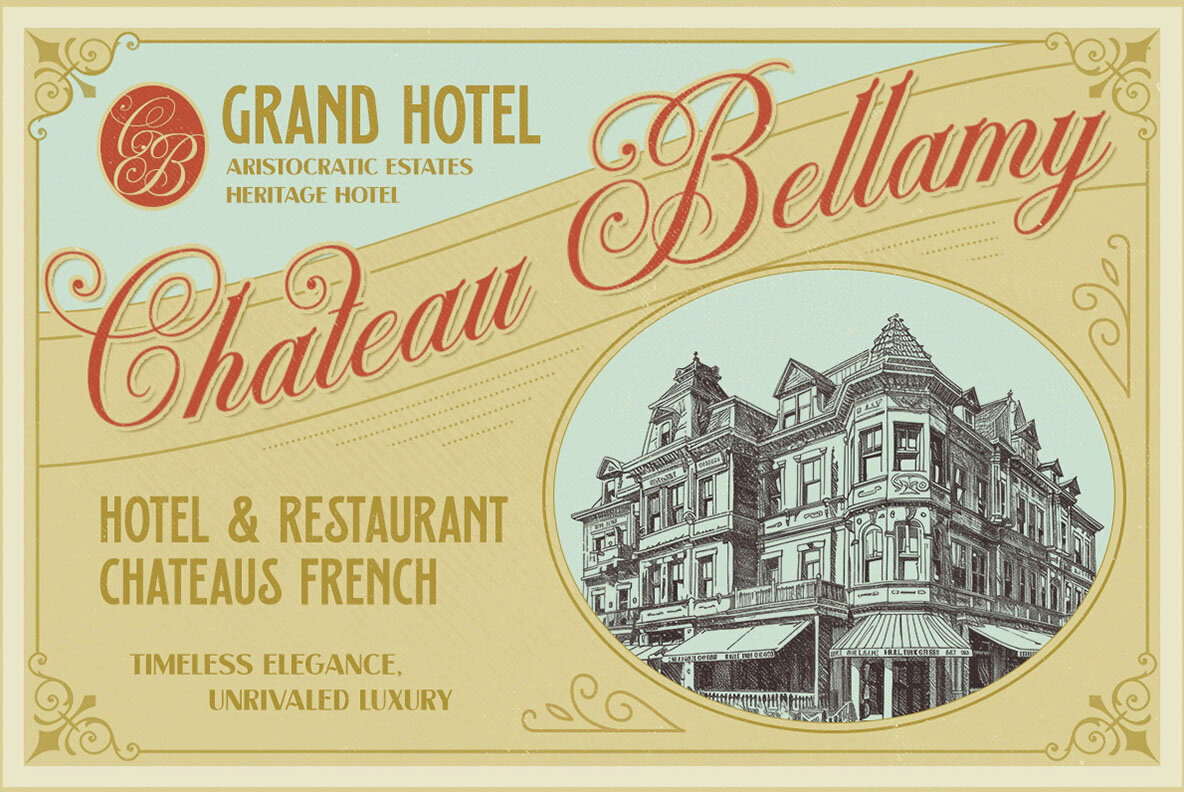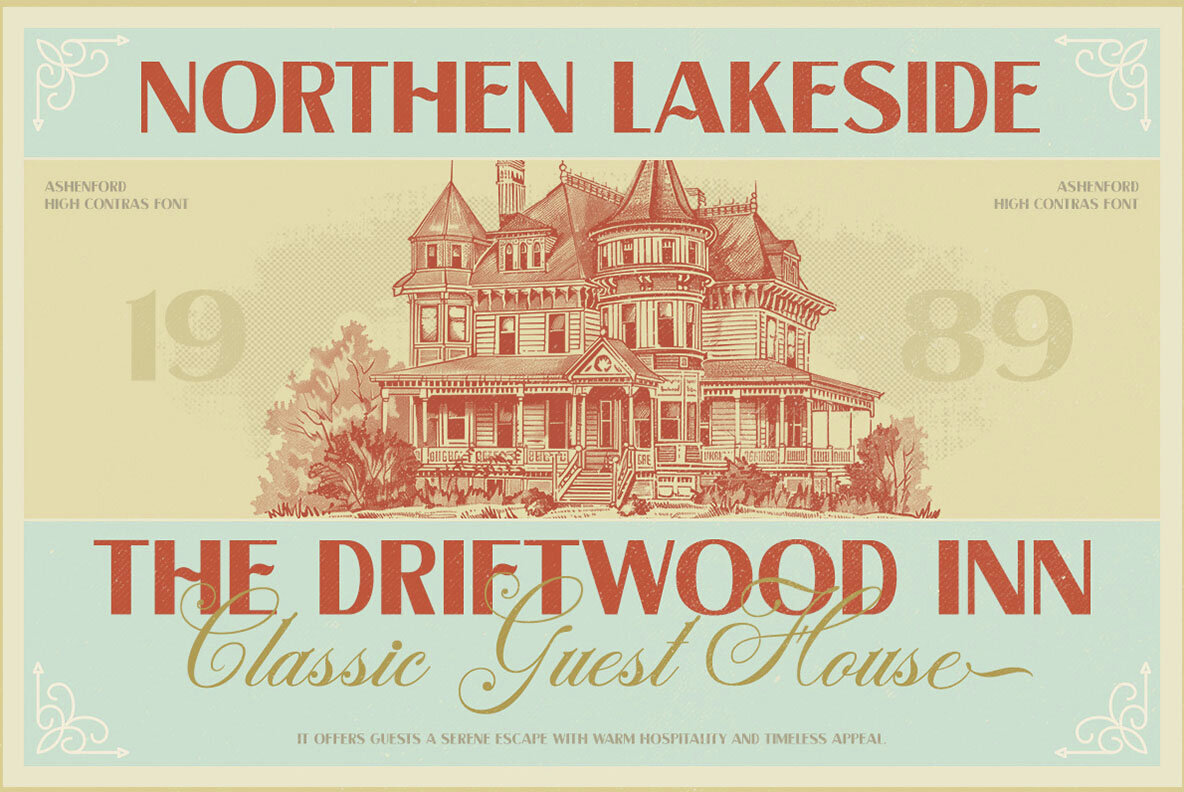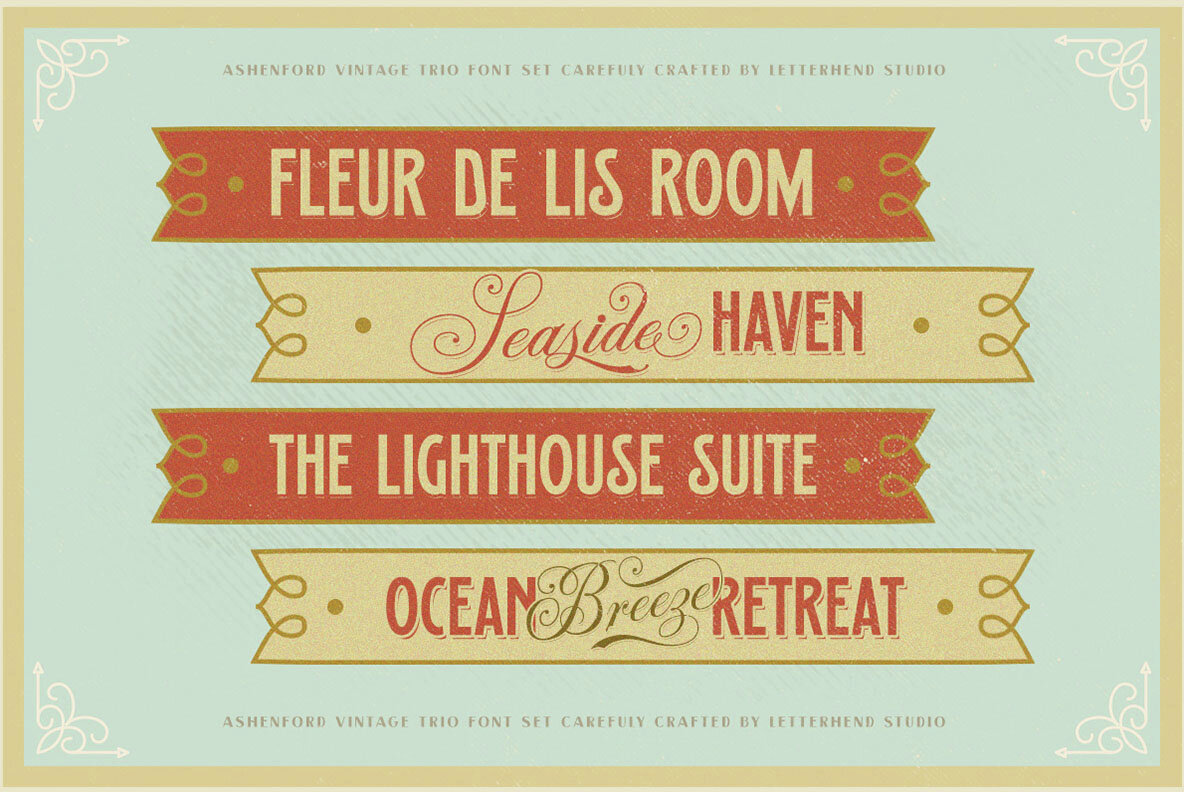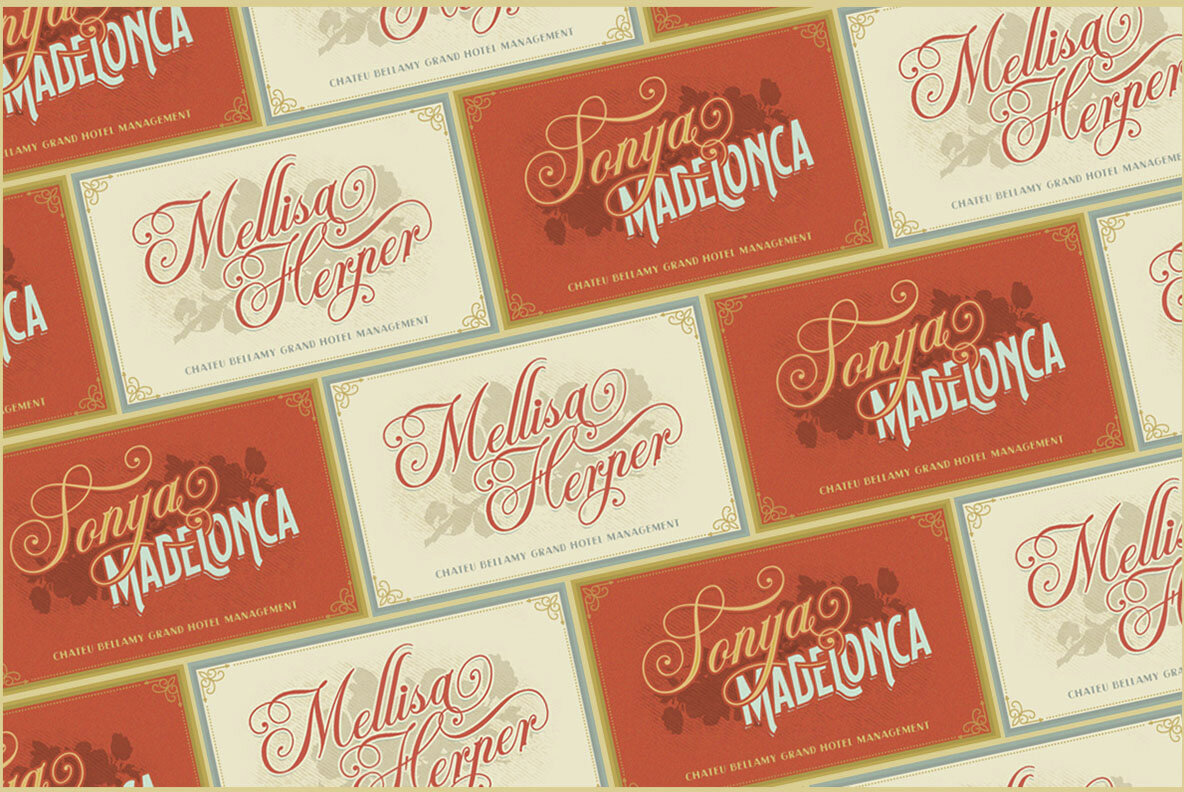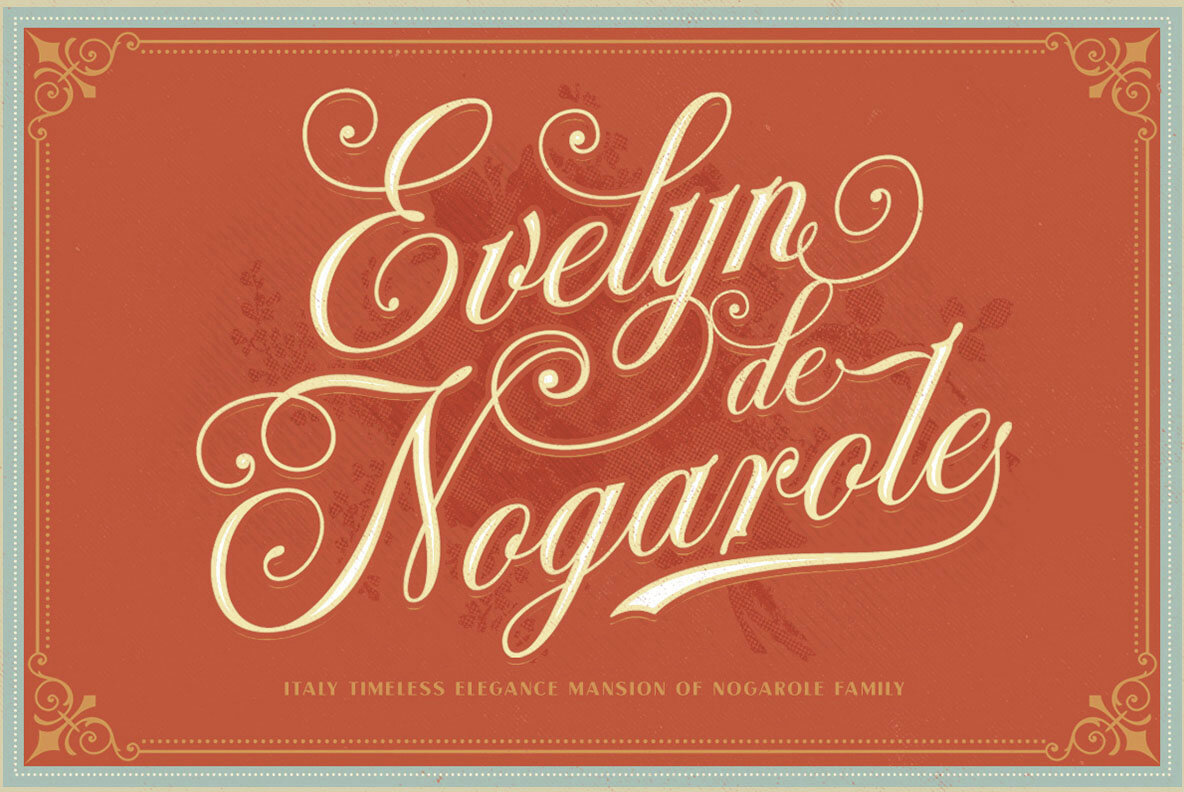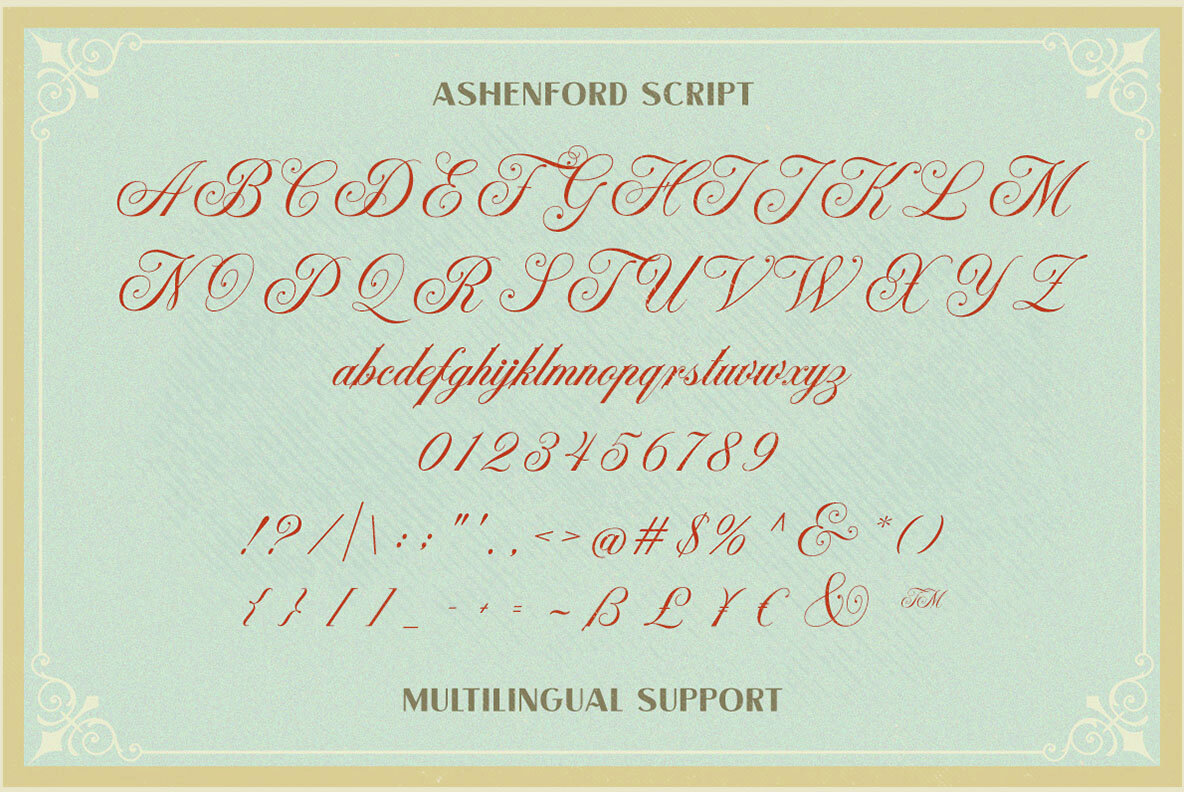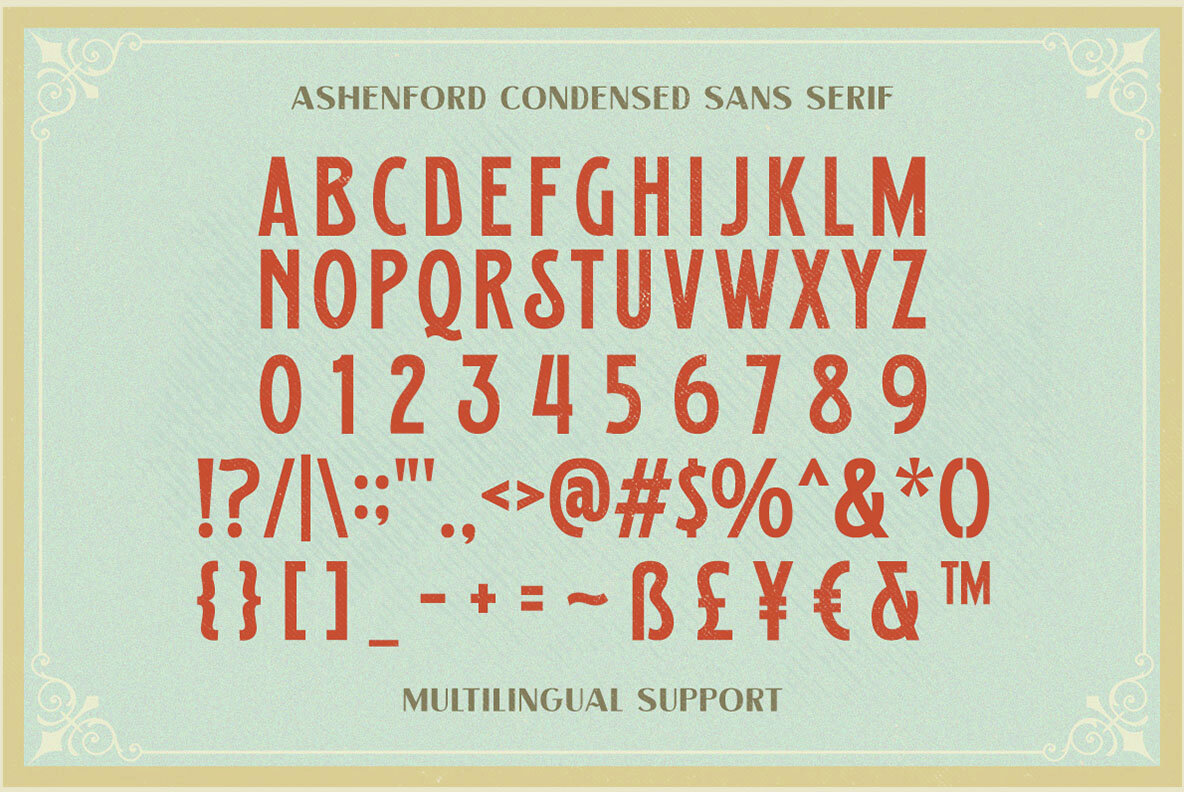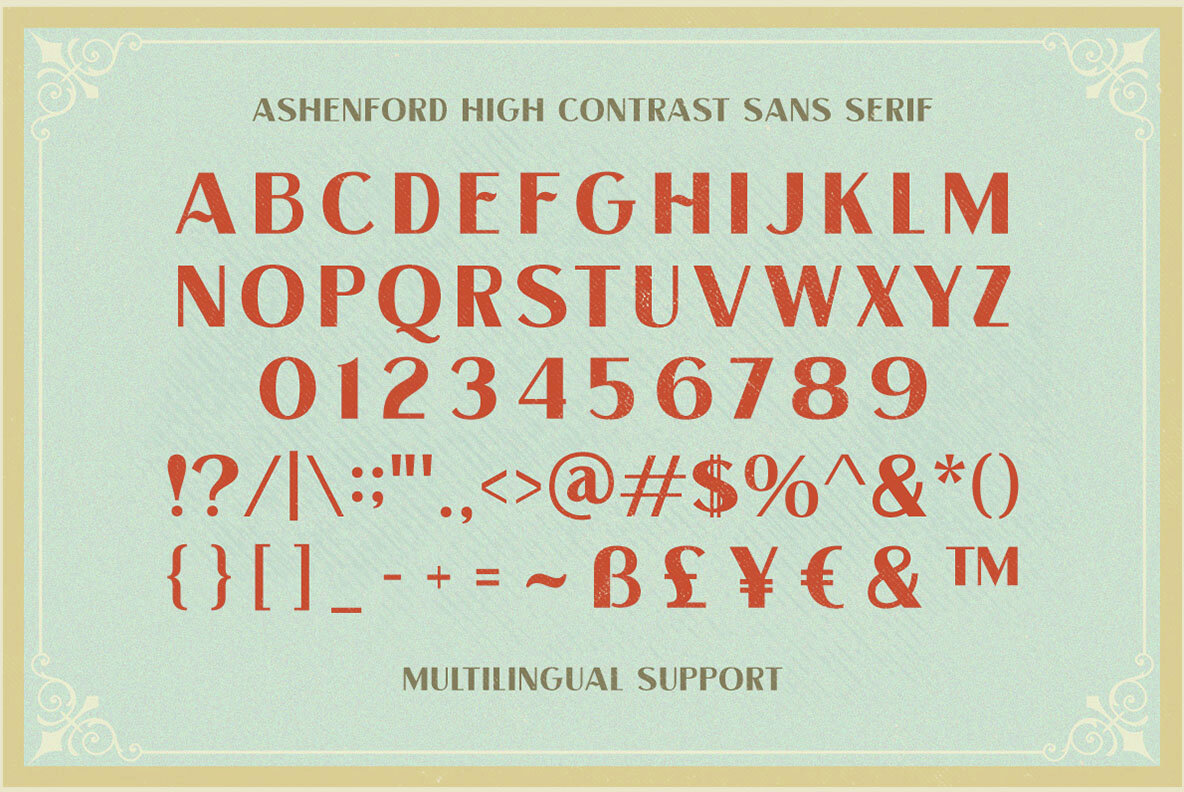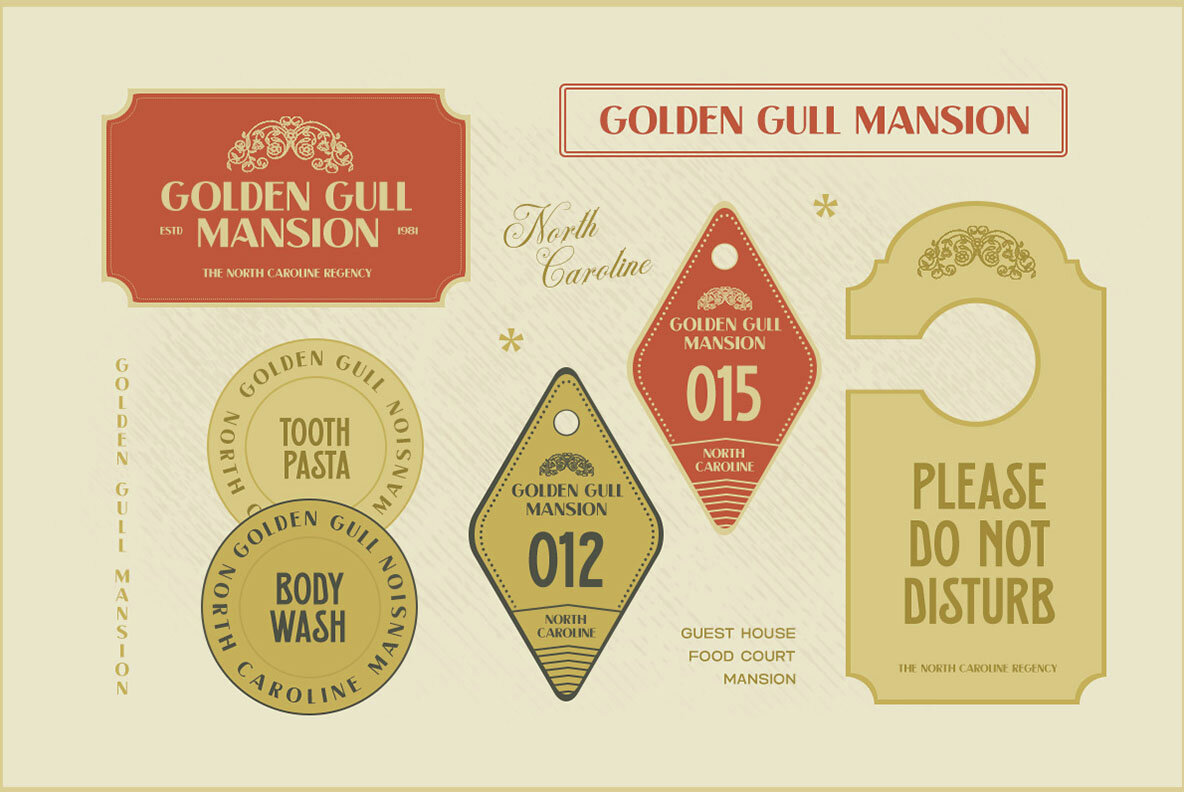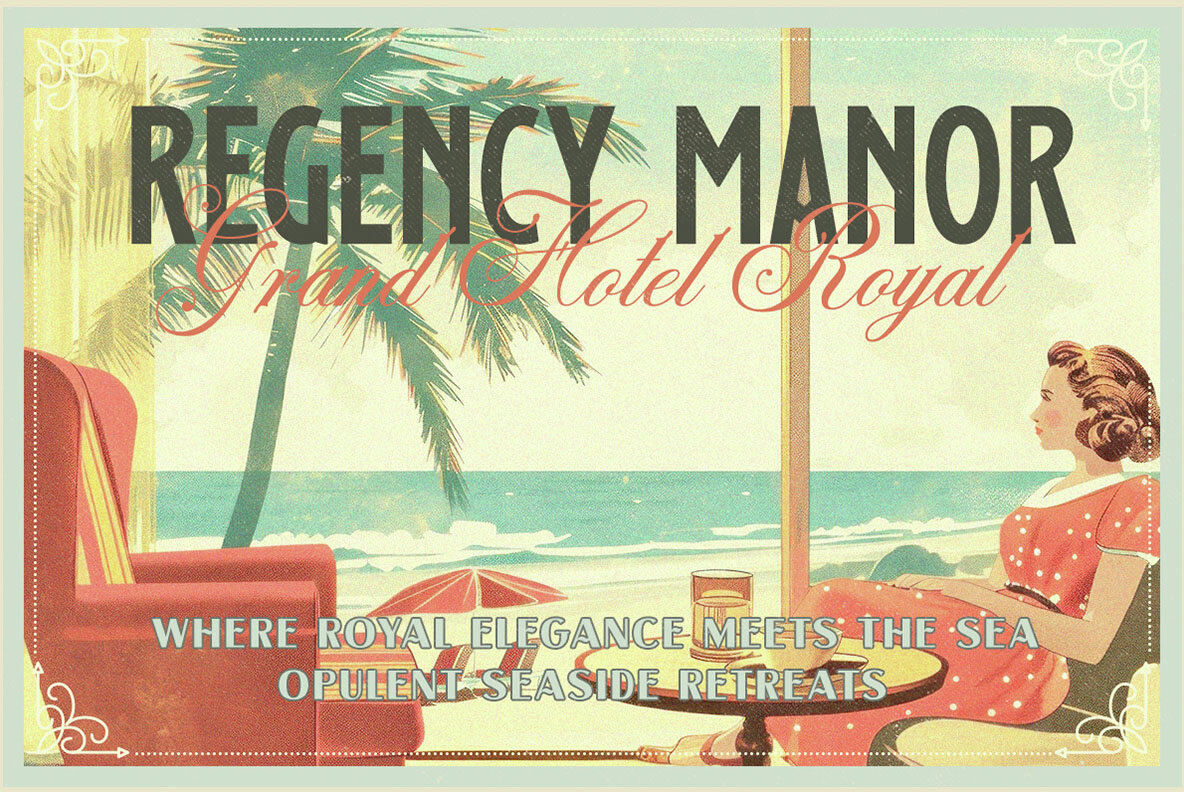
Ashenford Font
Step into timeless elegance with Ashenford, a meticulously crafted font trio that blends classic sophistication with vintage charm. Inspired by old-world signage, elegant calligraphy, and refined typography, this collection features a stylish script, a condensed sans-serif, and a high-contrast sans-serif—perfect for branding, logos, packaging, posters, and editorial designs. Features: We highly recommend using a program that supports OpenType features and Glyphs panels like many of Adobe apps and Corel Draw, so you can see and access all Glyph variations.